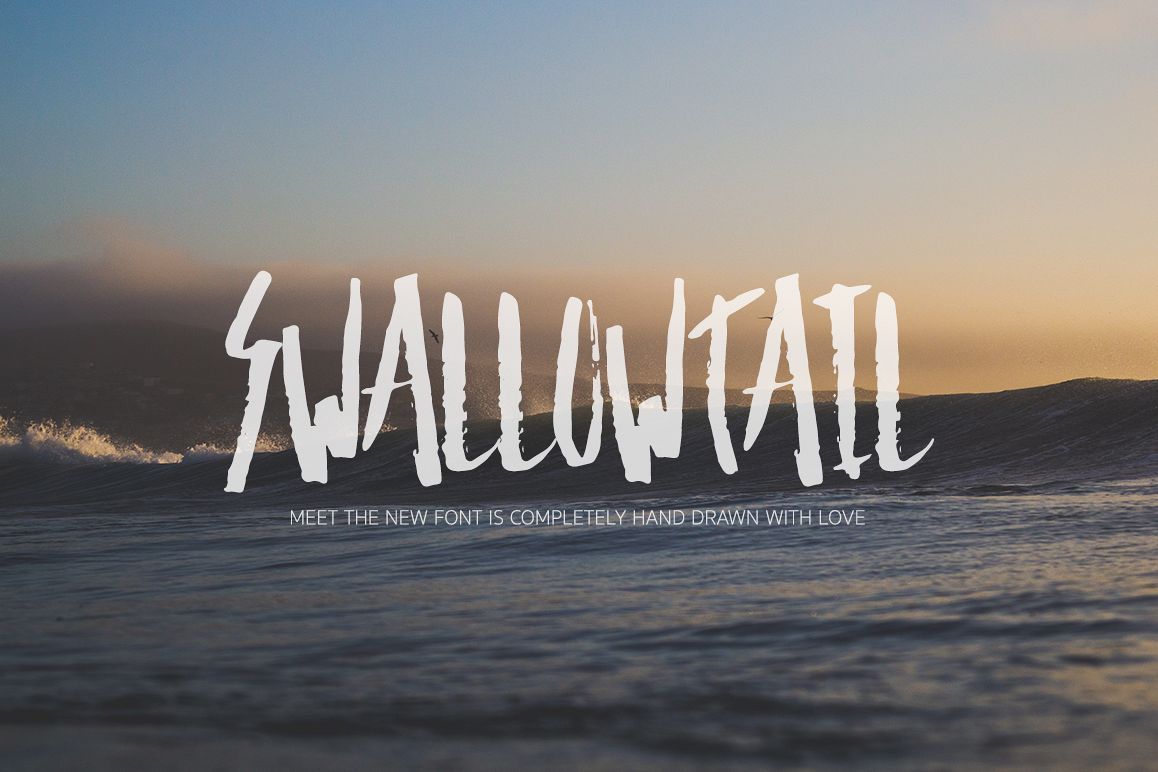
Swallow Tail handwritten script
I present to you a great handwritten font. 100% drawn by hand. Perfectly suitable for the decoration of your works, design of logos, creation of invitations, greeting card and more.
• Support ALL European Languages